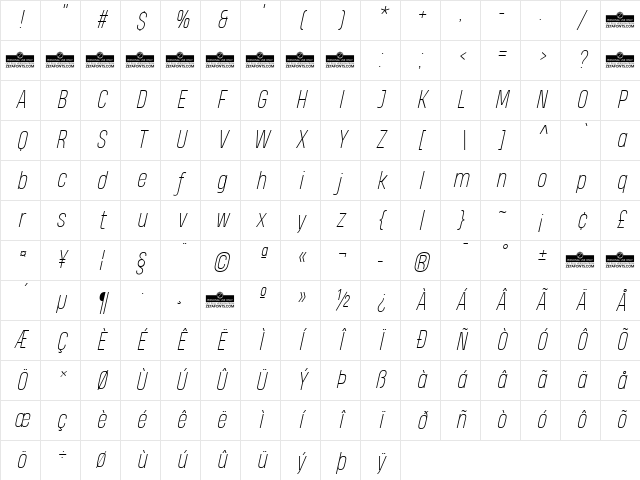
Heading Pro Trial Thin Italic Free Font
Heading Pro Trial Thin Italic
Style: Thin Italic
Foundry: Studio Kmzero & Zetafonts
Designer: Francesco Canovaro
Design Context for Heading Pro Trial
Heading Pro Trial is a composed and adaptable typeface that performs quietly and consistently across a wide range of design contexts. The slanted form adds forward momentum and visual energy. Its slender proportions lend an understated elegance to any composition.